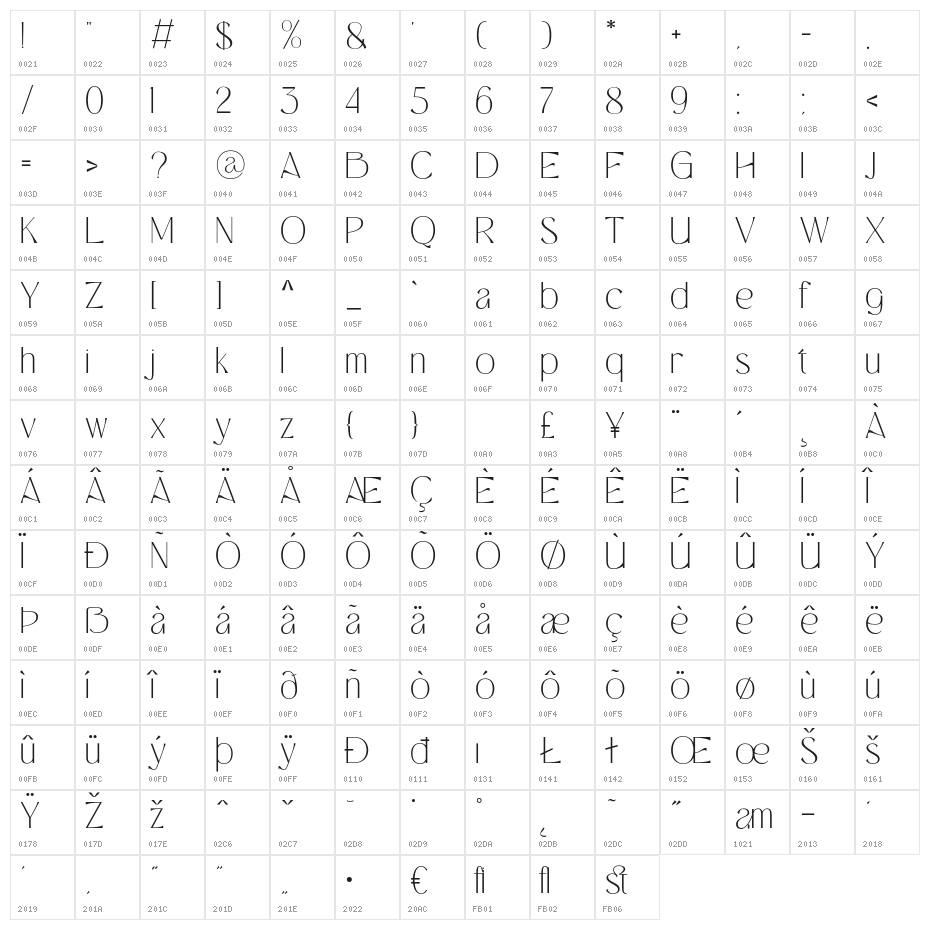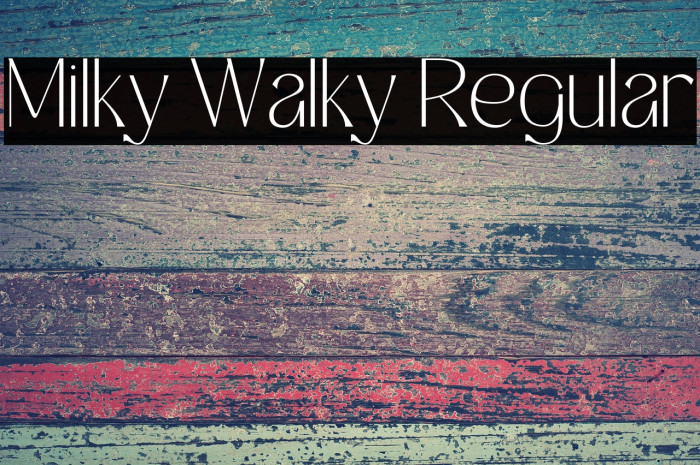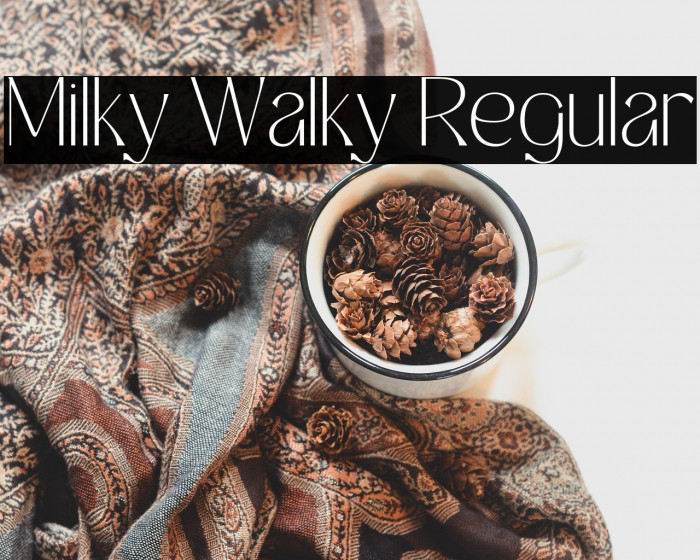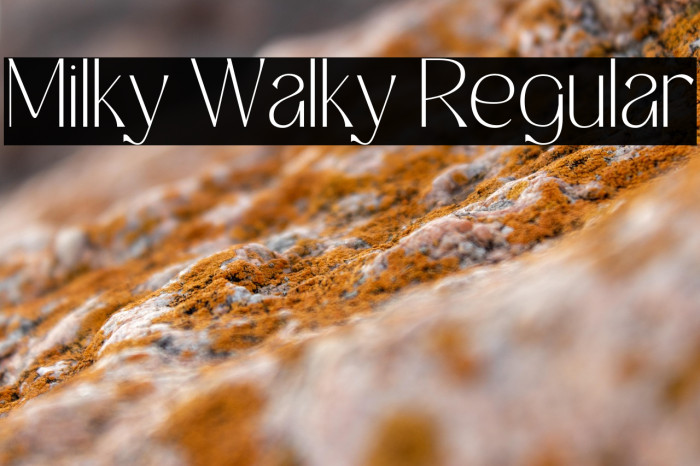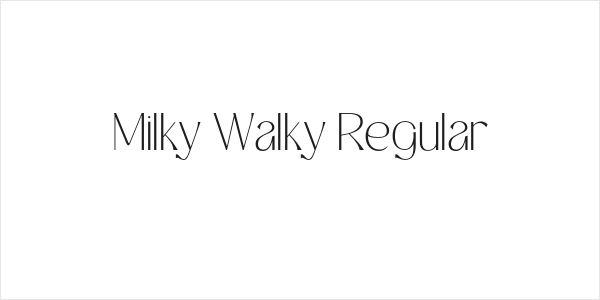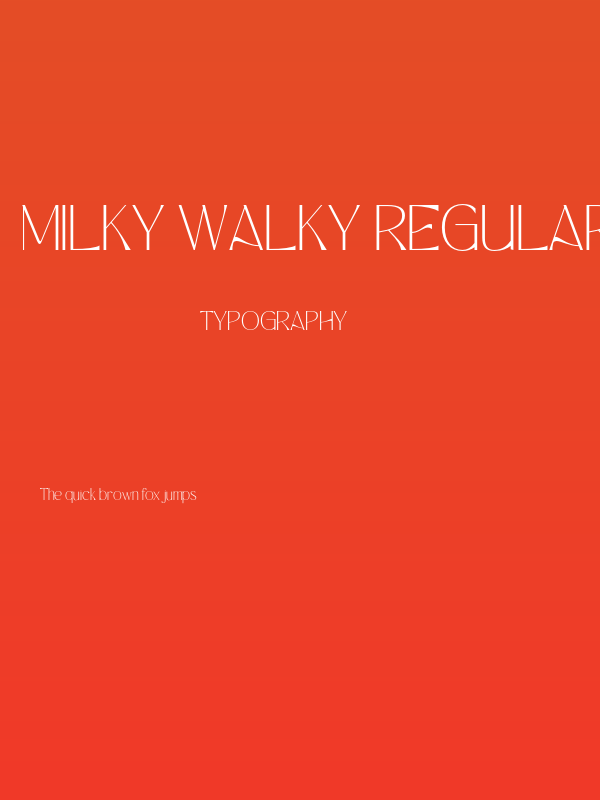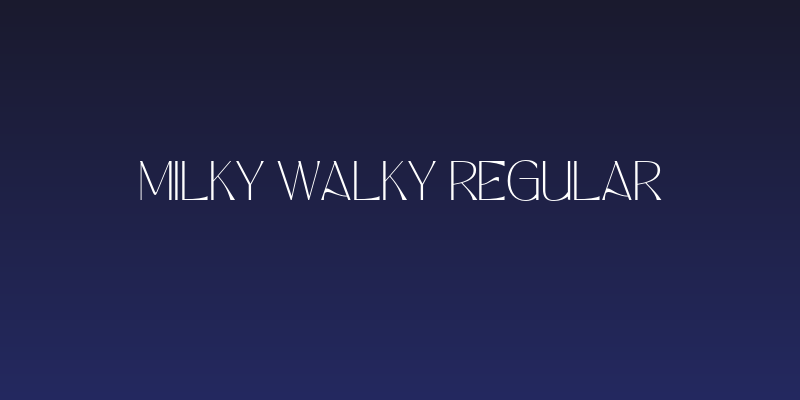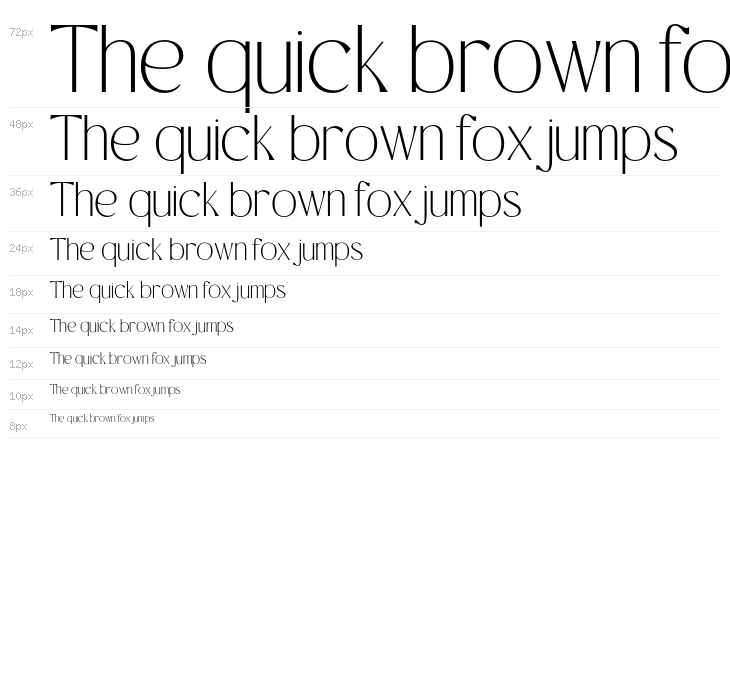
Milky Walky Regular Font
Milky Walky Regular Description
This font features a modern and sleek design with a geometric structure. The characters are elegantly elongated with a subtle curvature that adds a touch of sophistication. The uppercase letters are tall and narrow, while the lowercase letters maintain a consistent height, creating a harmonious balance. The numerals are distinct and easy to read, with a uniform thickness that complements the overall style. Special characters are crafted with precision, maintaining the font's clean and contemporary aesthetic. This font is versatile, suitable for a variety of design projects.
| Proposed Projects | Ideal for branding, editorial design, advertising, and digital interfaces. |